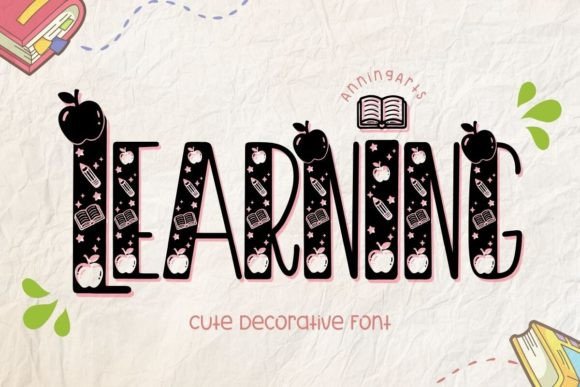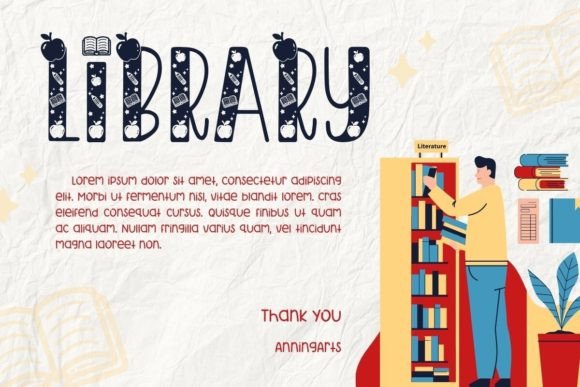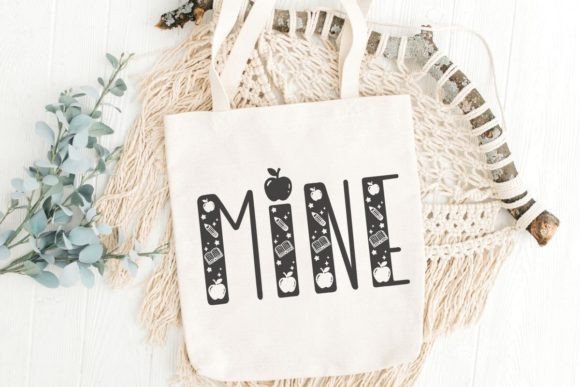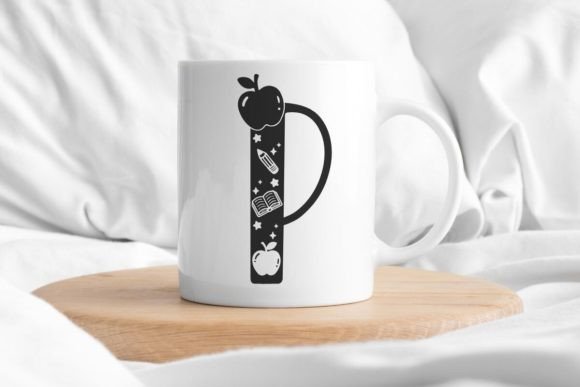
Learning Font
About the Learning Font
From logos to headlines, the Learning Font is the perfect choice for making a lasting impression. Learning is a cute, decorative font decorated with apples, notebooks, and pencils that represents education with a back-to-school theme. The quirky design adds a fun touch to any project. Perfect for creating a wide variety of new designs to match products such as banners, content, mugs, cards, shirts, stationery, social media posts, and more!
Learning Font’s playful nature makes it ideal for children’s books, educational materials, back-to-school promotions, and branding for playful companies targeting a younger audience. It works well in headlines, short text blocks, and on packaging where its decorative elements add visual interest. However, its decorative style makes it unsuitable for body text or long paragraphs, negatively impacting readability. Avoid using it in UI or situations requiring high legibility.
Pairing Learning Font with a clean sans-serif like Open Sans for body copy creates a balanced visual hierarchy. For a more sophisticated look, consider pairing it with a classic serif font such as Garamond for supporting text elements. If a more modern feel is desired, a geometric sans-serif like Montserrat could be used for contrast.
The overall personality of Learning Font is cheerful and friendly, conveying a sense of youthful energy and approachability. This makes it an excellent choice for projects that want to communicate optimism and a connection to education or childhood.
Learning Font Usage Examples
Learning Font Example